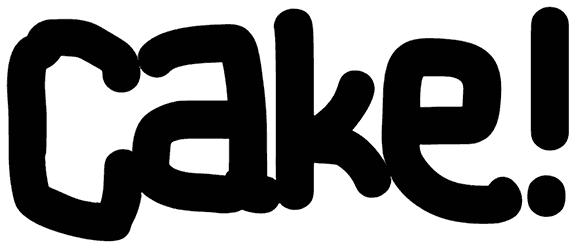
Cake! Font
Cake Font
Keeping your work fresh is very important, so always try something new, like this handwriting font. Cake! is an interesting font that creates an organic effect with its flawed marker typography, which makes it a great choice for banners, flyers, packaging, and kids’ toy logos.